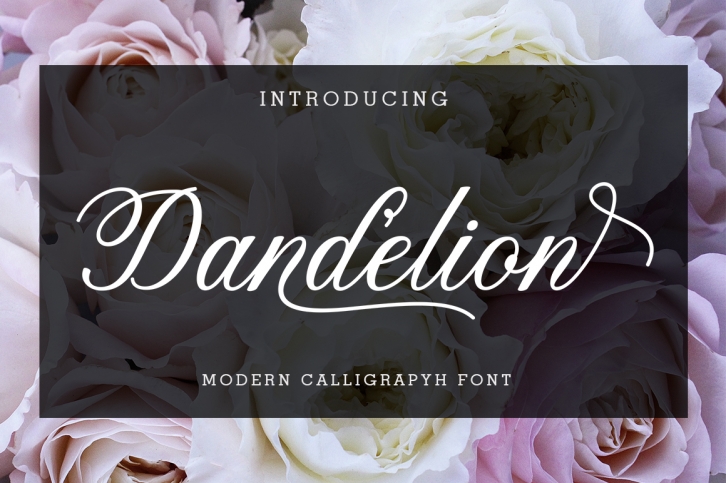
Dandelion Script is a beautiful font that was designed by Supotype. It's a great choice for designers and creatives who need such a font. It was released on December 3, 2018 and the file size is 10.11 MB. Dandelion Script may give a more youthful, expressive and casual look to your project. It is a very beautiful, refined, elegant, and high-quality font.